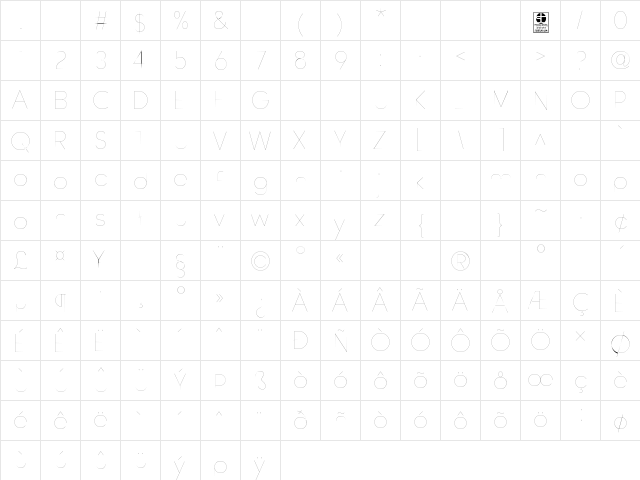
Watchword Hairline Demo Regular
| Foundry | StudioTypo |
| Designer | MEHMET ABACI |
Design Context for Watchword Hairline Demo Typeface
Watchword Hairline Demo is a composed and adaptable typeface that performs quietly and consistently across a wide range of design contexts. Its slender proportions lend an understated elegance to any composition.